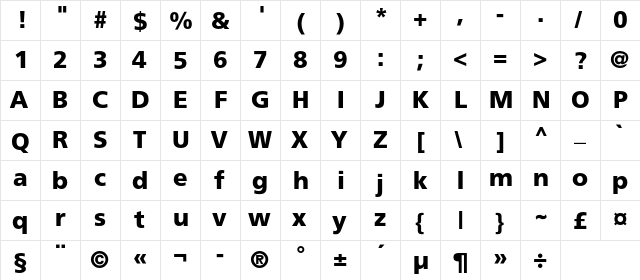
FreeSetBoldC Regular
Design Context for FreeSetBoldC Typeface
FreeSetBoldC is a composed and adaptable typeface that performs quietly and consistently across a wide range of design contexts. Its bold stroke weight gives it real presence on the page.